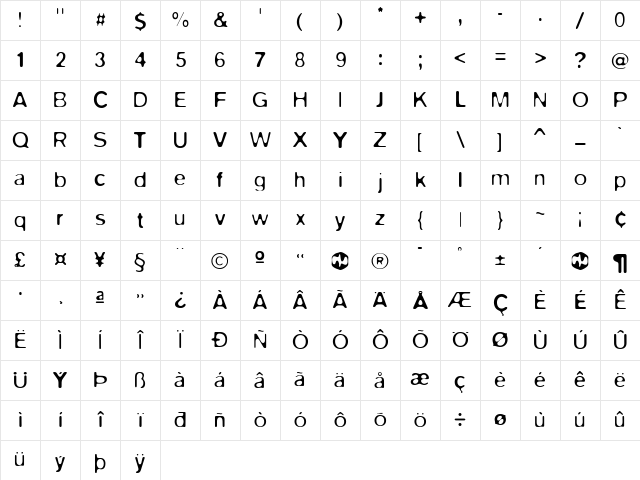
Blur Light
Blur Family
Complete Blur Light glyph index. Displaying only characters natively supported by Blur Light font.
Design Context for Blur
Blur is a composed and adaptable typeface that performs quietly and consistently across a wide range of design contexts. Its slender proportions lend an understated elegance to any composition.